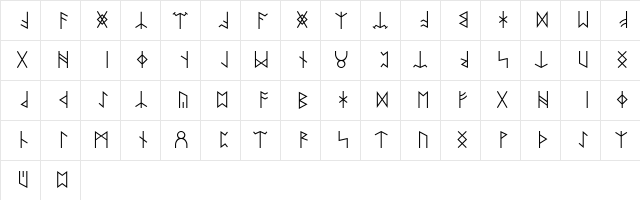
FuthorkAS Medium
Design Context for FuthorkAS Typeface
FuthorkAS is a composed and adaptable typeface that performs quietly and consistently across a wide range of design contexts.